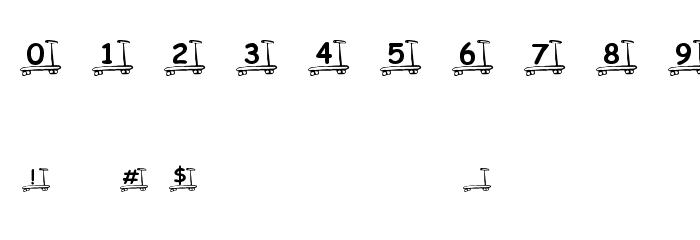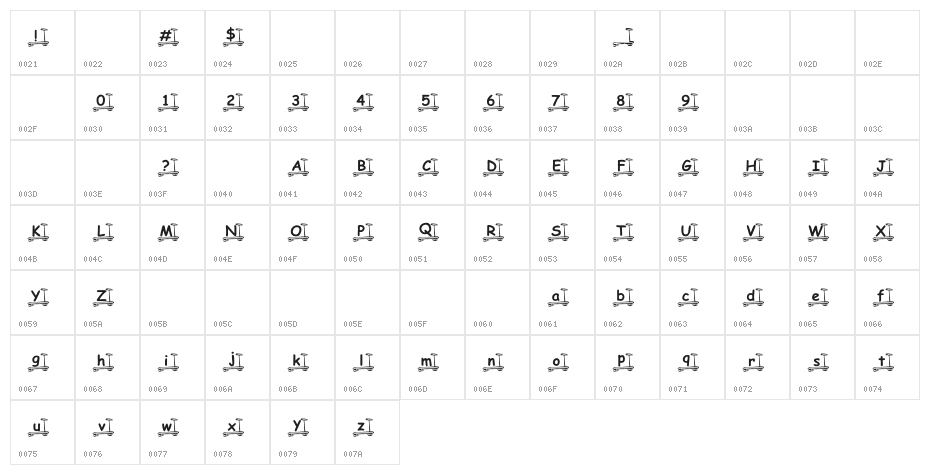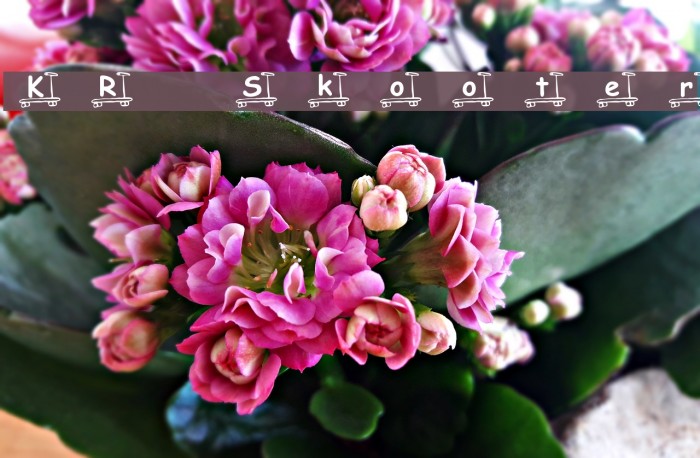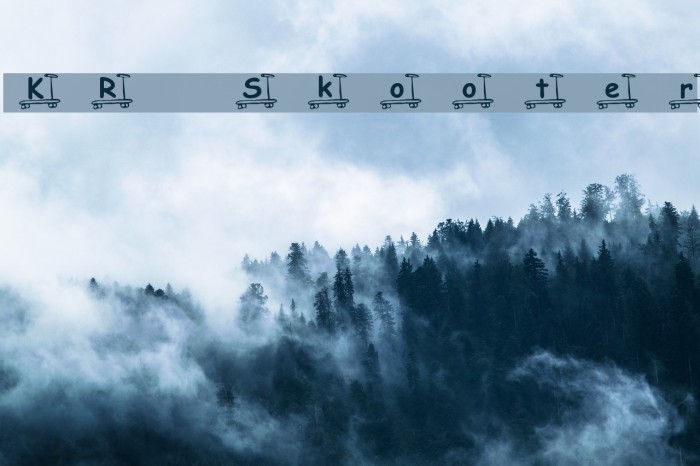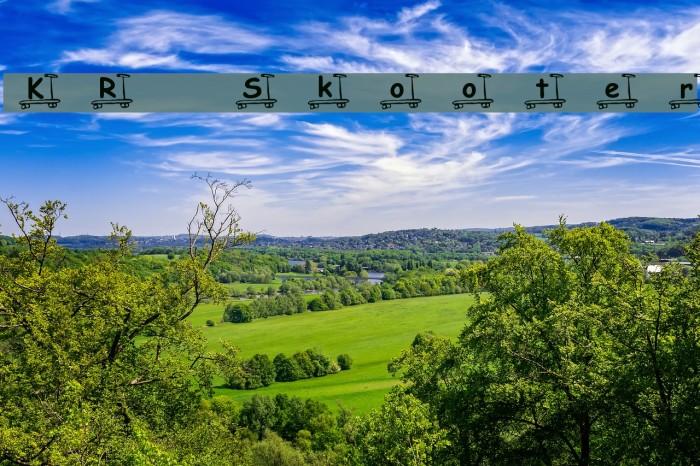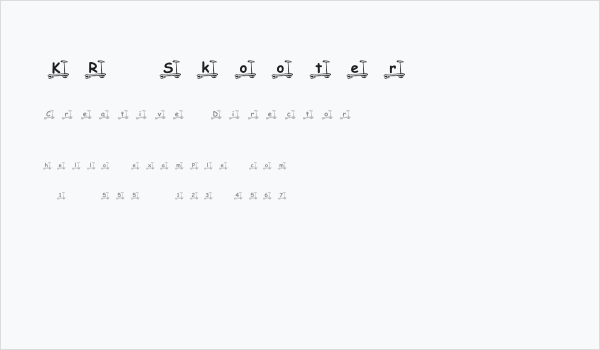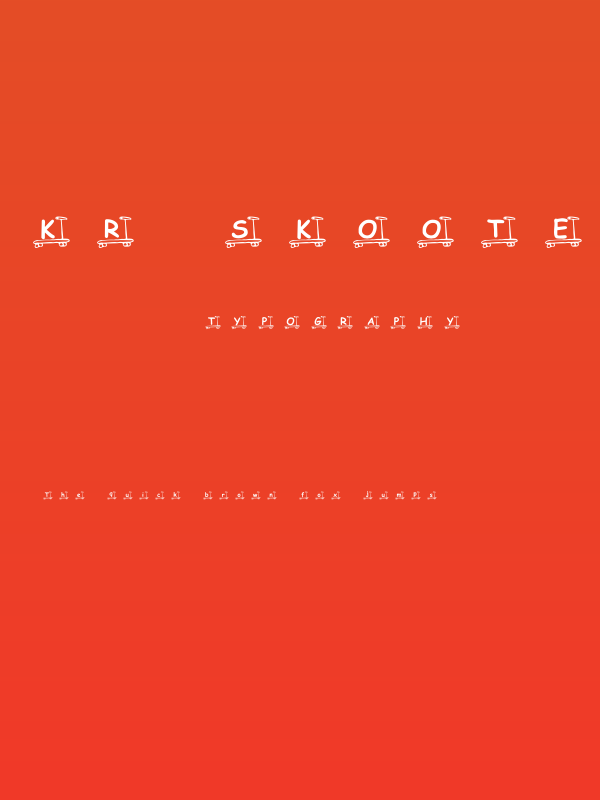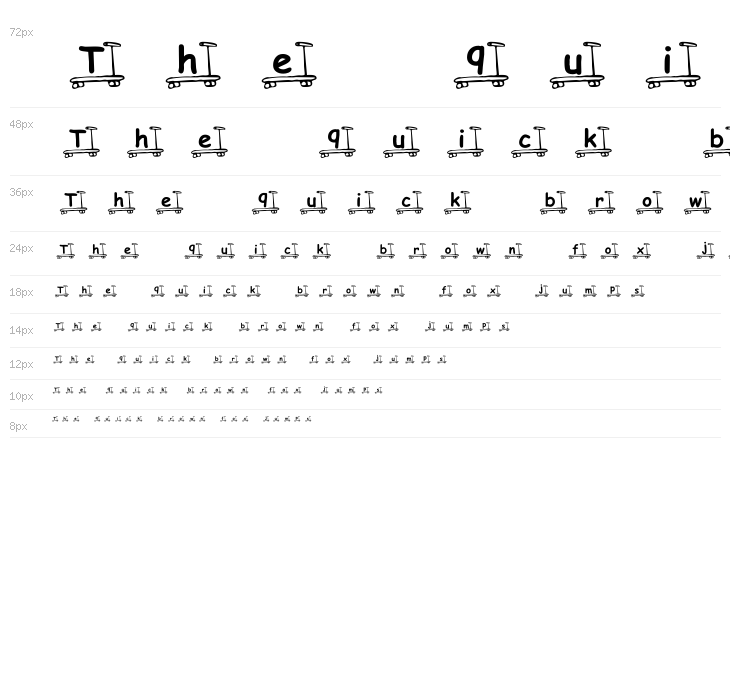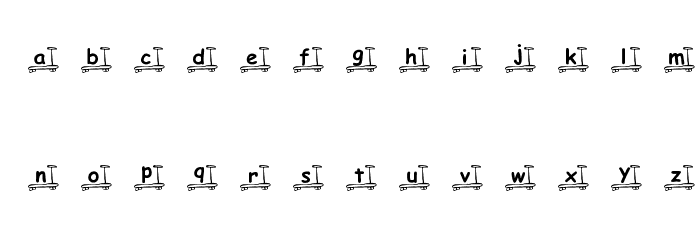
KR Skooter Font
KR Skooter Description
This playful and whimsical font features letters perched atop skateboard decks, giving it a unique and dynamic appearance. The characters are bold and slightly irregular, adding to the casual and fun vibe. Each letter is distinct, with a hand-drawn quality that enhances its playful nature. The font is perfect for projects that aim to capture a youthful and energetic spirit, such as children's books, skateboarding events, or playful branding. Its distinctive style makes it stand out, ensuring that any text using this font will be eye-catching and memorable.
| Proposed Projects | Ideal for children's books, skateboarding events, playful branding, and creative posters. |